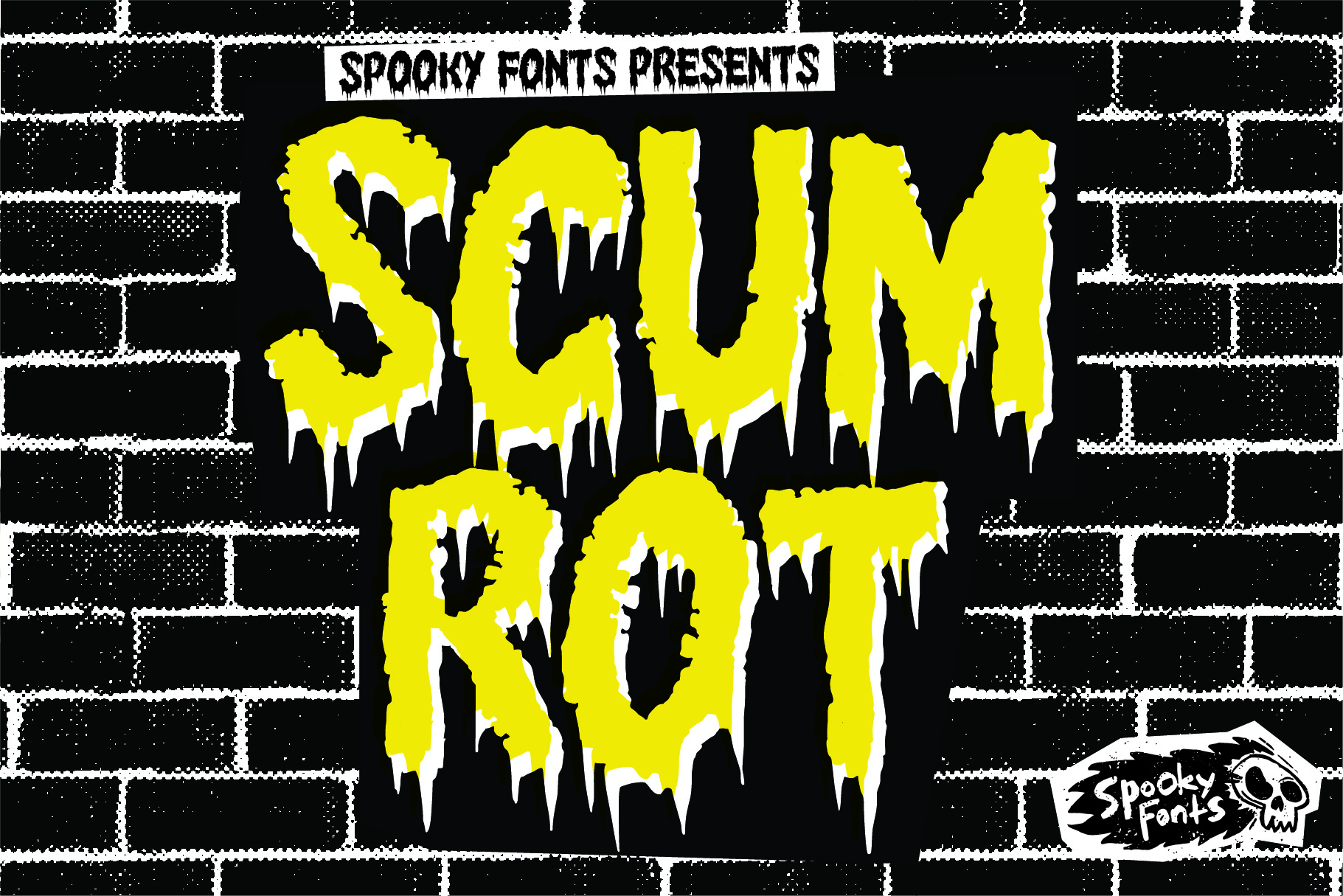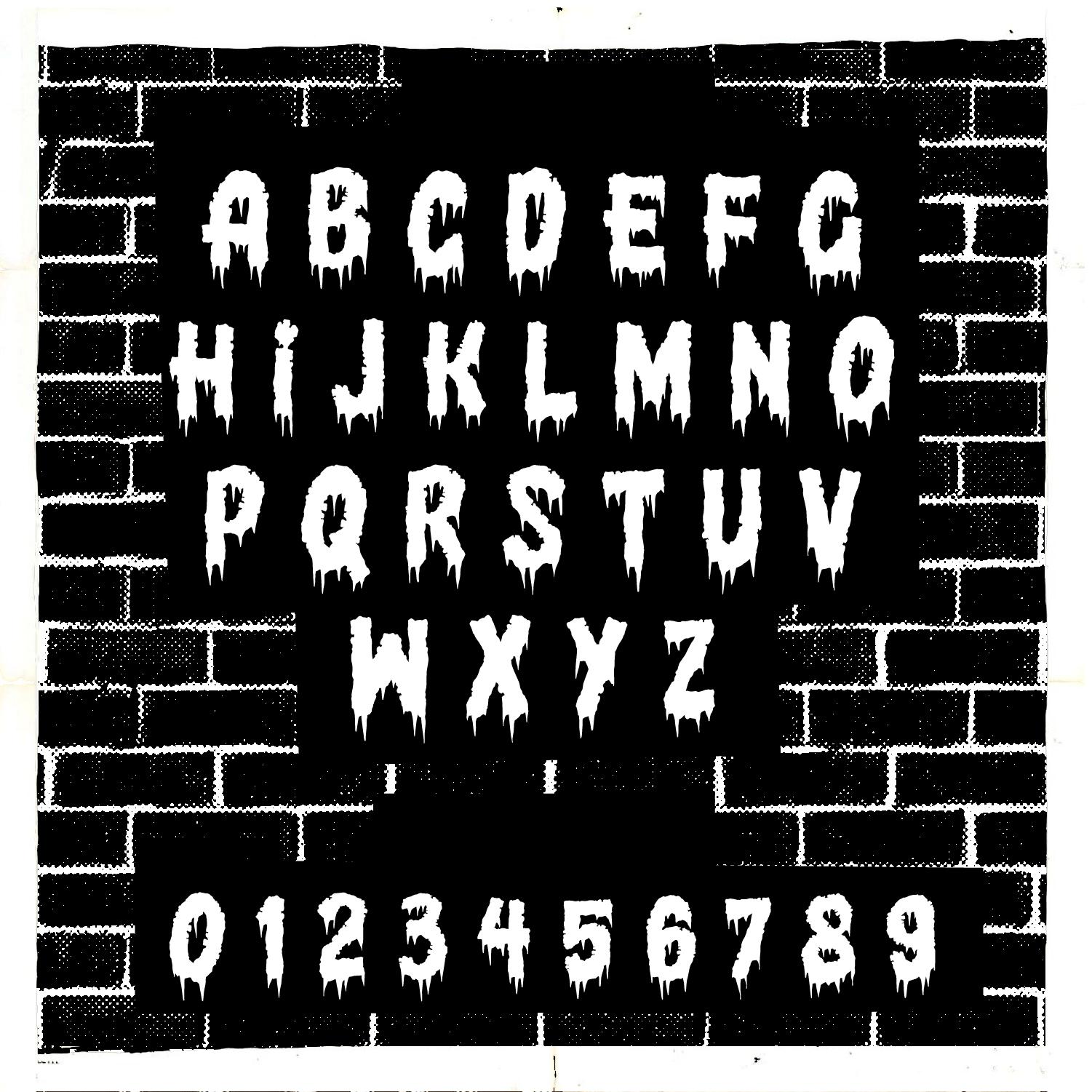
Greetings, you ghastly ghouls and gruesome goblins! Prepare to be bewitched by Scum Rot, the font that will infuse a dose of rotten rebellion into your designs. This drippy san serif, with its wicked style, channels the malevolent influence of vintage punk posters and the gritty allure of 1980s low-budget horror films.
Scum Rot isn’t just a font; it’s a rebellion against the ordinary. With its gritty aesthetic inspired by 1980s low-budget horror films, each letter tells a tale of macabre defiance. Picture the flickering lights of a midnight punk show, and you’ll grasp the essence of Scum Rot. This font isn’t for the faint-hearted; it’s for those who seek to infuse their designs with an untamed spirit, echoing the rebellious energy of an era that embraced decay and rebellion. Embrace the raw and unfiltered vibe of Scum Rot as it transports your projects to the shadows of unconventional creativity.
Features:
- Drippy Malevolence: Each letter of Scum Rot, akin to melted wax, drips and slithers with an eerie grace, leaving a trail of decay in its wake. This unique aesthetic transports you to the shadowy realm of horror, adding an authentic touch of macabre rebellion to your designs.
- Inspired by Punk Posters: Scum Rot draws inspiration from the rebellious and gritty designs of old punk posters, infusing your projects with a raw and untamed energy reminiscent of the rebellious spirit of the 1980s.
- Perfect for Halloween Season: Whether you’re conjuring up designs for haunted events, horror-themed parties, or spooky promotions, Scum Rot is the ideal font to set the stage for a chilling Halloween season. Let your creativity run wild and embrace the rebellious spirit of the font.
- Letters, Numerals & Simple Punctuation: Scum Rot provides a complete set of characters, including letters, numerals, and simple punctuation, allowing you to craft a variety of spine-chilling messages and designs.
Indulge in the gritty rebellion of Scum Rot, and let your designs resonate with the untamed spirit of 1980s horror. Transform your projects into a visual journey through the shadows, where decay meets rebellion in a dance of macabre elegance.